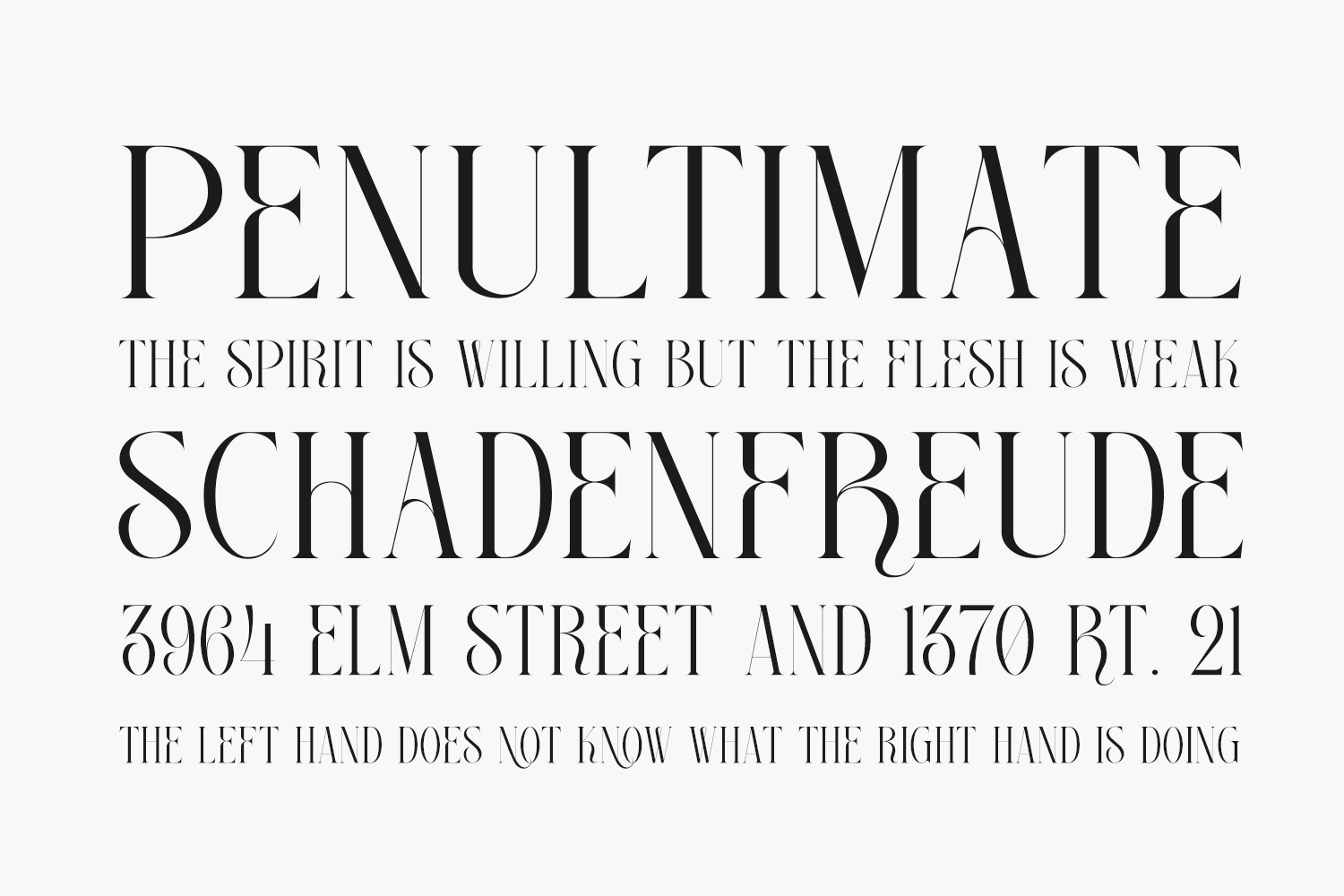
Georgiano Free Font is a stylish and delicate serif font. Georgiano Free Font is free for personal use only. Please purchase the full version for commercial use.
Designed by Romi Rahmadi